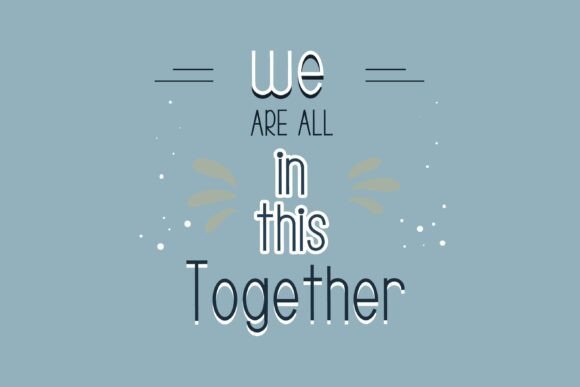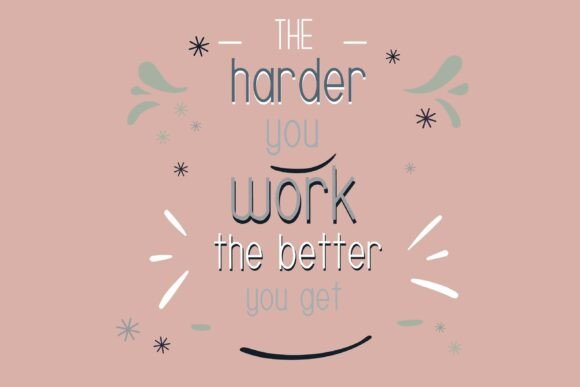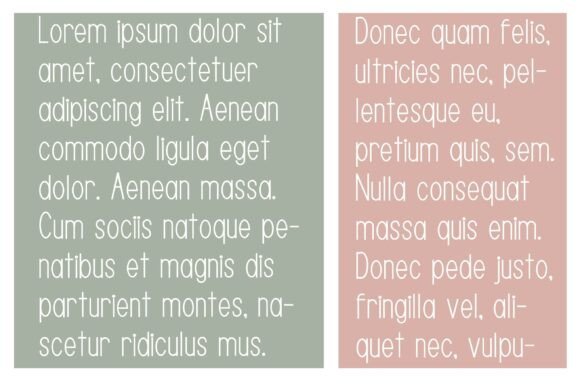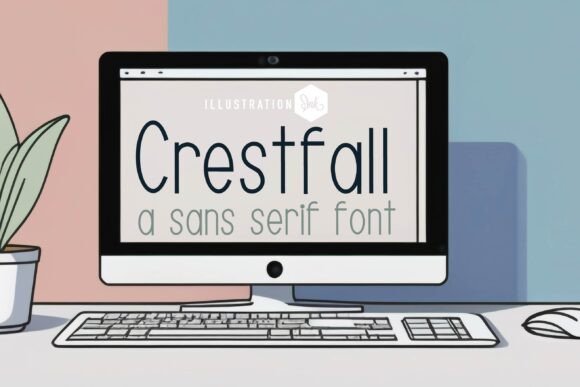
Introduction to Crestfall Font
This hand-crafted sans serif has wide spacing throughout.
Light version included A hand-crafted font is a font that is designed to look like it was written by hand.
Key Features of Crestfall Font
Why Choose Crestfall Font?
Crestfall Font offers exceptional quality and versatility, making it a valuable addition to your design toolkit. Whether you’re creating for personal projects or commercial use, Crestfall Font delivers professional results.